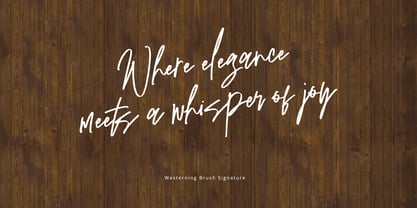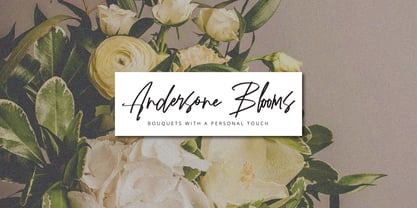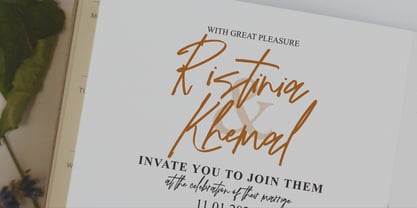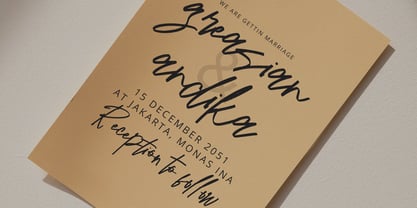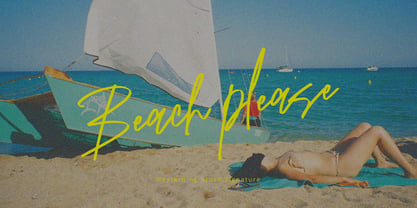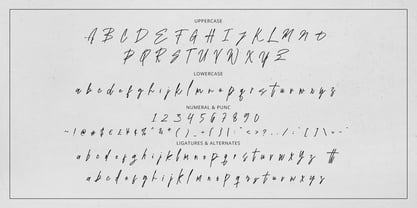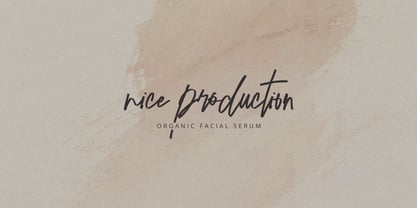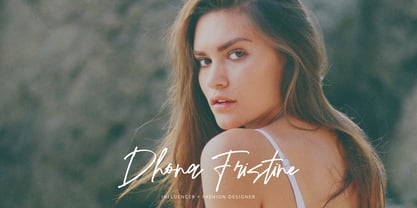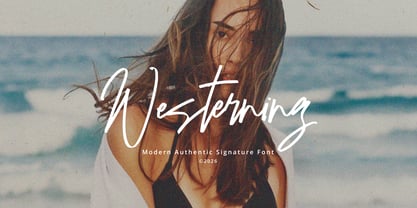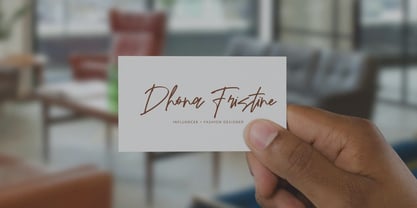
Westerning Brush Signature
Westerning – Modern Authentic Signature Font
Capture effortless elegance with Westerning, a modern signature script designed to emulate expressive, natural handwriting. Featuring organic strokes, subtle dry-brush textures, and graceful connections, this typeface offers an authentic personal touch that elevates any design layout.
Westerning is ideal for luxury branding, editorial layouts, wedding stationery, floral packaging, quote posters, and photography watermarks. Its fluid rhythm brings warmth and high-end sophistication to modern visual identities.
Westerning Brush Signature Features :
Uppercase & Lowercase International Languange & Symbols Support Punctuation & Number PUA Unicode Range Standard Ligatures Discretionary Ligatures Stylistic Alternates Stylistic Set.